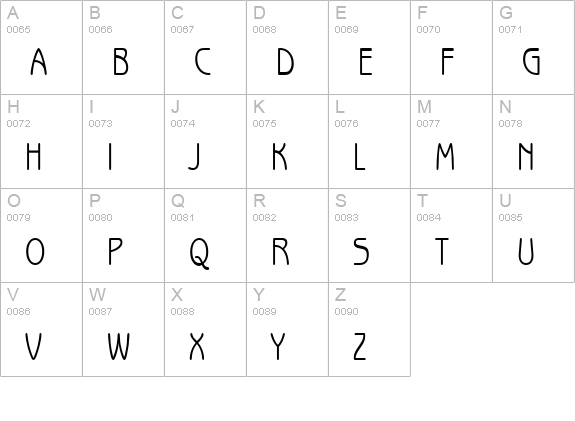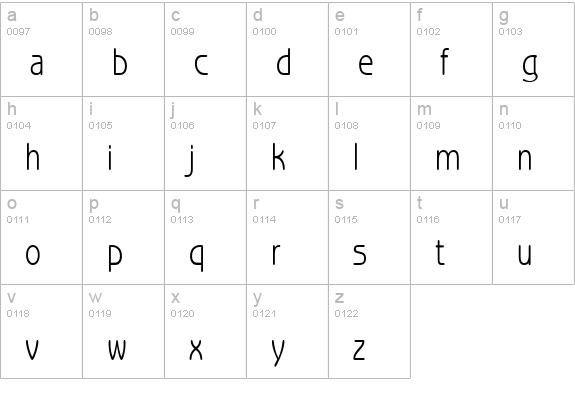
Beagle-Condensed Normal is the standard, neutral, condensed-width variant in the Beagle typeface family \xE2\x80\x94 well suited to general body text, paragraphs, and standard typographic work.
Beagle-Condensed Normal font is a sleek and modern typeface designed for versatility and readability in various design projects. With its clean lines and condensed form, this font exudes a sense of contemporary sophistication. The Beagle-Condensed Normal font is perfect for headlines, branding, packaging, and more. Best of all, this font is available for free download at FontsMarket.com. Get your hands on this stylish and practical typeface today and elevate your design projects with its professional look and feel.